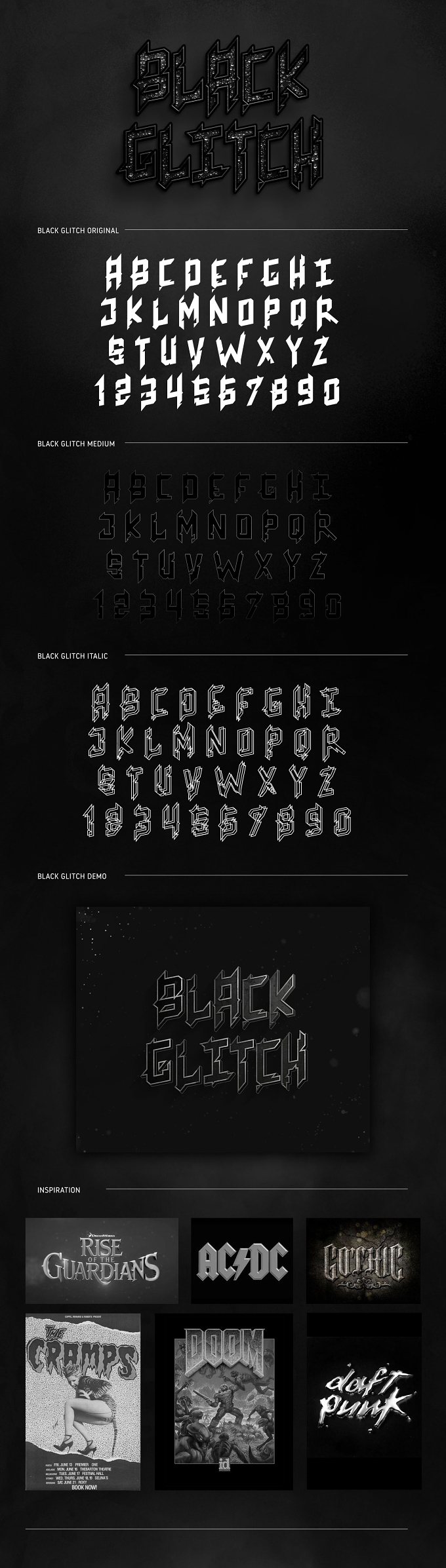
These side projects really give me a chance to be very experimental, giving into the artistic urges, to create something purely conceptual without putting an audience or understanding the client over the fun, creative part of the technique and pushing my own skillset.
I wanted to learn how to create my own typefaces using the Glyphs App. So I set myself a bit of a strange challenge to create a futuristic heavy metal typeface. A strange mix between glitching broken lines and classic gothic black letter typefaces. Ending in something that I'm proud of if only for the unique result. A perfect experimentation to add another software to my creative arsenal.